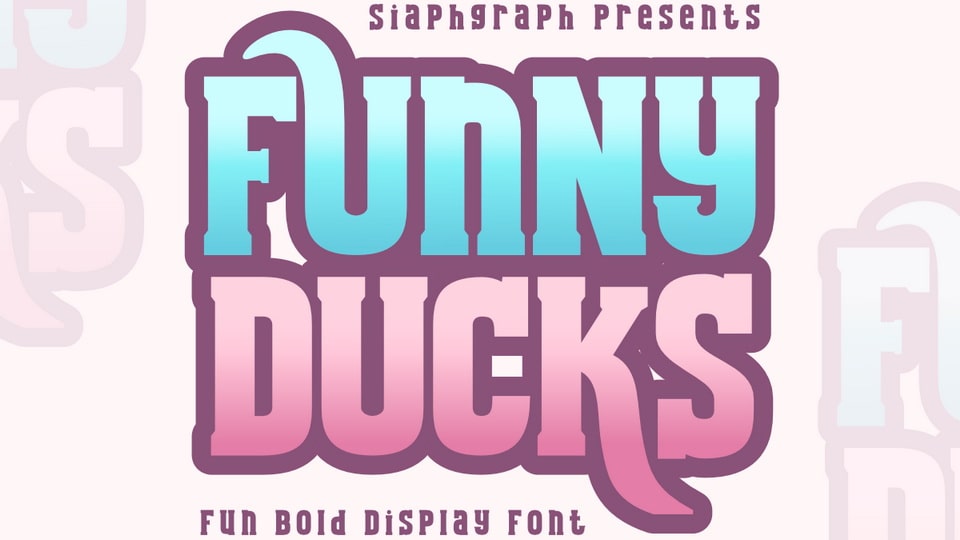
Download Funny Ducks font, a bold, playful display typeface with a cheeky attitude and a splash of sarcasm with its fun and chunky letterforms.
Designer: SiapGraph